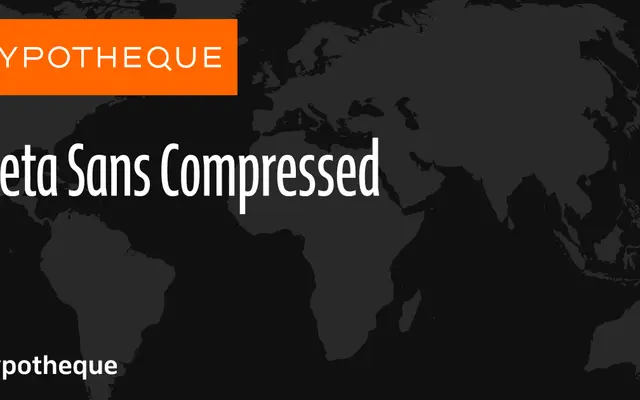
Greta Sans Compressed
Typotheque
The compressed width of Typotheque's extensive Greta Sans system, offering nine weights with italics for space-constrained editorial and news typography.
Greta Sans Compressed is the narrowest member of a four-width sans-serif family that spans Compressed, Standard, Condensed and Extended, each available in up to ten weights with matching italics. The system is designed for professional publishing environments where a single typeface must perform across very different column widths and contexts. A variable font version is also available, giving access to the full weight and width range in a single file.
Greta Sans is a large humanist sans-serif system with multiple widths; the Compressed variant sits at the narrowest end of a family designed for demanding editorial and news environments.